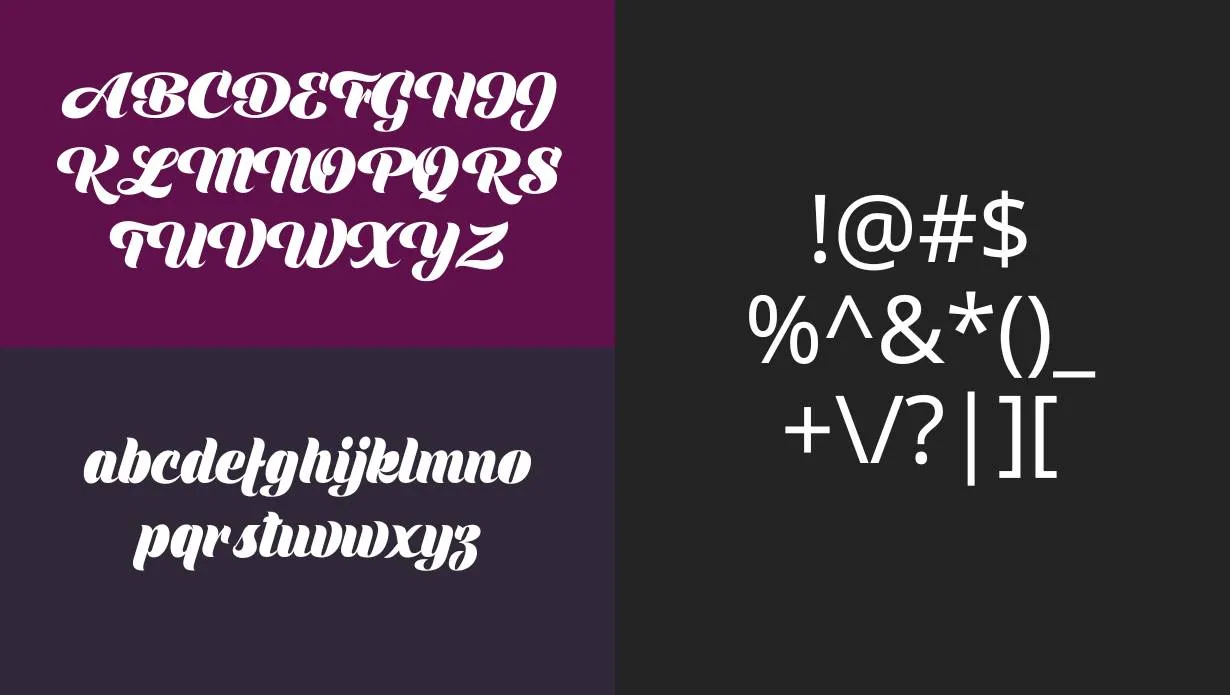
Let’s talk about a script typeface Shine Font. This stylish font was designed by Billy Argel Fonts. This beautiful font has unique style characters which makes it more beautiful. It has many characters and glyphs with a bold and attractive look.
| Name | Shine Font |
| Designer | Billy Argel Fonts |